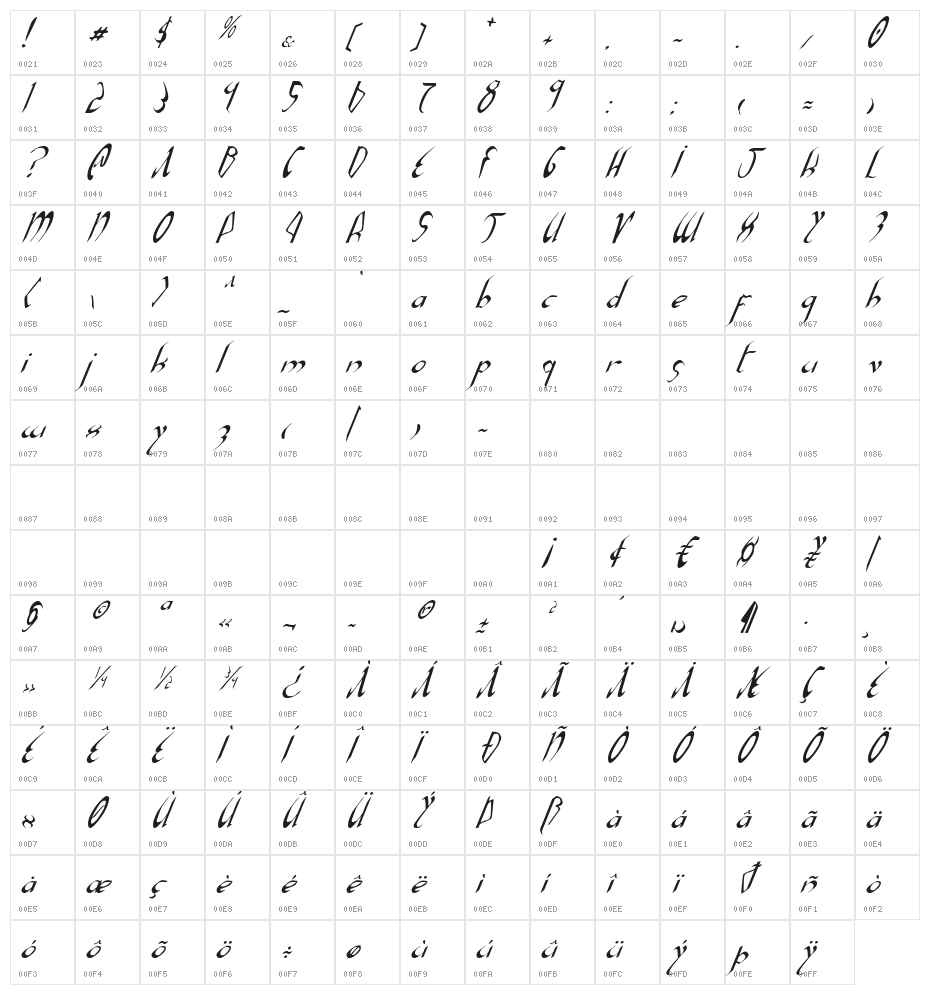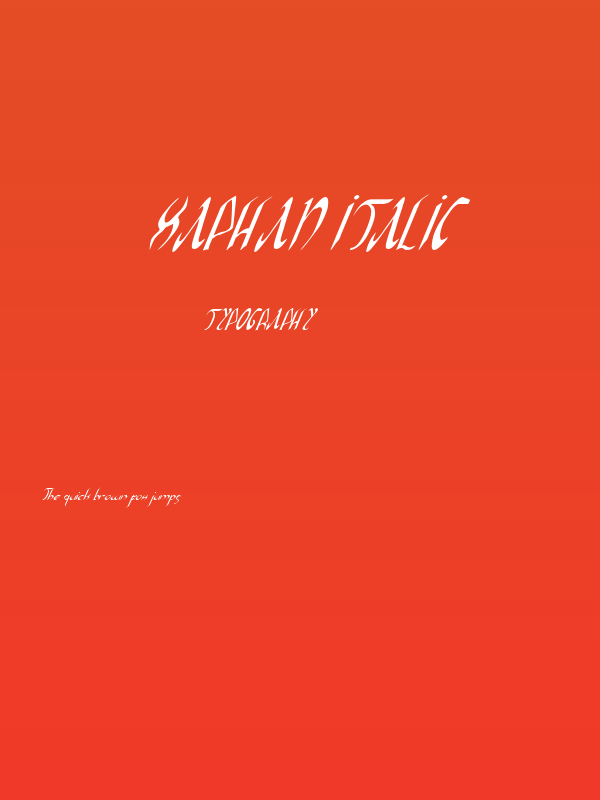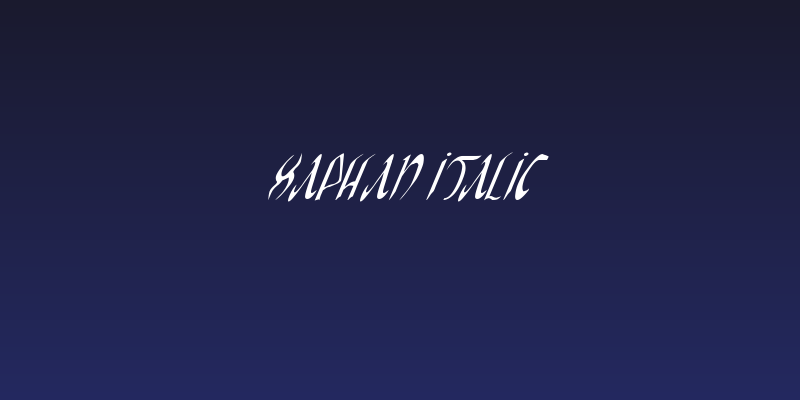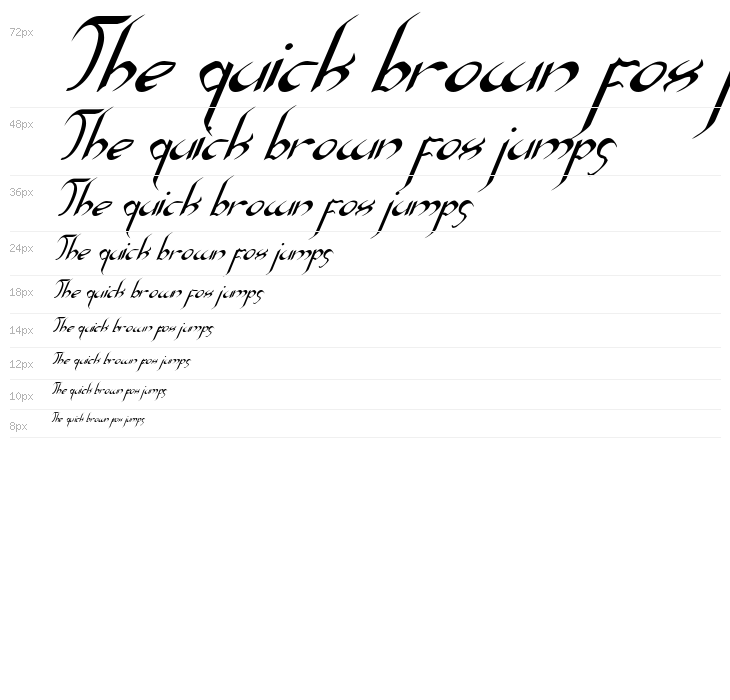
Xaphan Italic Font
Xaphan Italic Description
This font features a dynamic and expressive style with sharp, angular strokes and a pronounced slant, giving it a sense of motion and energy. The uppercase letters are bold and commanding, while the lowercase letters maintain a fluidity that complements the overall design. The numerals and special characters are crafted with the same attention to detail, ensuring consistency across all elements. The font's unique character is further enhanced by its high contrast in stroke thickness, which adds depth and dimension. This font is ideal for projects that require a bold and artistic touch, making it suitable for creative headlines, posters, and branding materials.
| Overall Style | Modern, Artistic |
| Use Case | Headlines, Posters, Branding |
| Proposed Projects | Ideal for creative headlines, posters, branding materials, and artistic designs. |